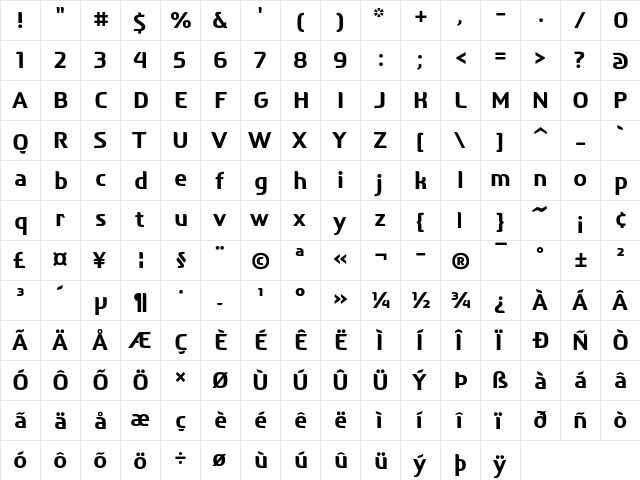
After Text Bold
| Designer | Fabio Luiz Haag |
Design Context for After Text Typeface
After Text takes a measured approach to typography — its balanced proportions and neutral character make it a reliable workhorse for both digital and print work. The heavy weight commands attention and anchors typographic hierarchies.